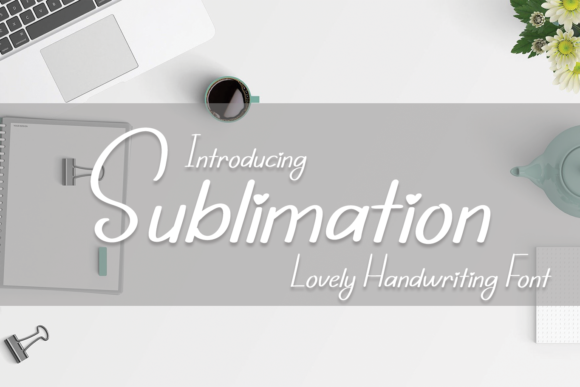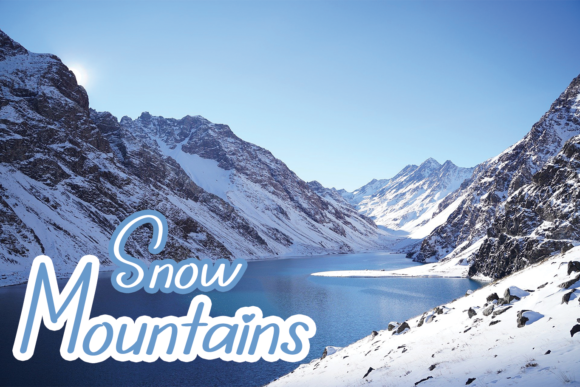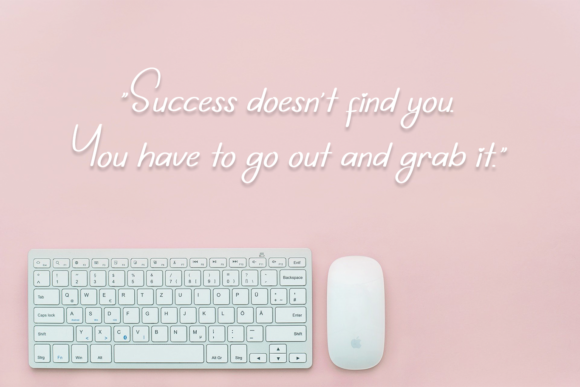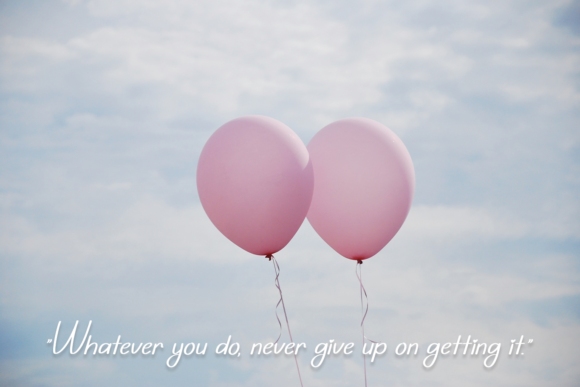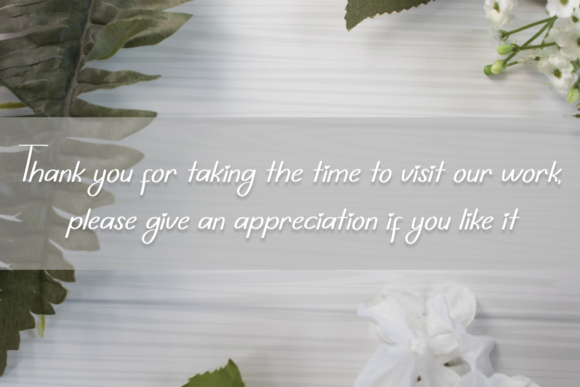
Sublimation Font
Sublimation is a unique and skinny handwritten font. Simple but with a strong visual effect, this font will instantly make your creations more appealing and interesting!